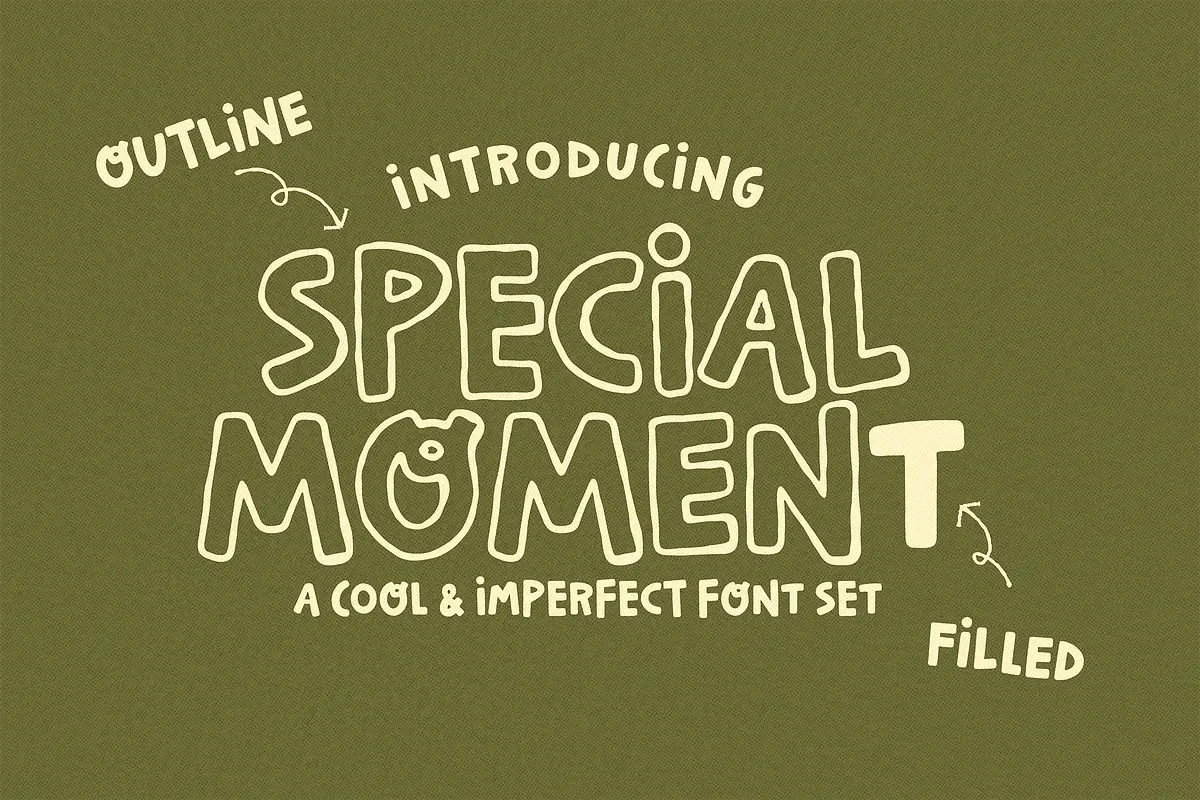
SPECIAL MOMENT | COOL & FUN FONT Free Download
Please note, you must purchase this font for commercial use. However, you can easily download SPECIAL MOMENT | COOL & FUN FONT Free Download for personal use and testing purposes. SPECIAL MOMENT | COOL & FUN FONT is a vibrant and playful typeface that adds a touch of excitement to any project. Perfect for children's designs, event posters, social media graphics, and more, this font captures a light-hearted and fun spirit. With its unique character and bold appearance, SPECIAL MOMENT | COOL & FUN FONT Free Download makes a statement, ensuring your message stands out in a cheerful and energetic way. Whether you're working on a celebratory project or creating eye-catching graphics, this font brings a joyful vibe to your designs. Download SPECIAL MOMENT | COOL & FUN FONT Free Download today and explore its creative possibilities before opting for a commercial license.